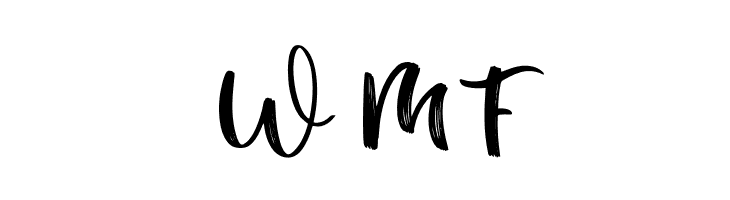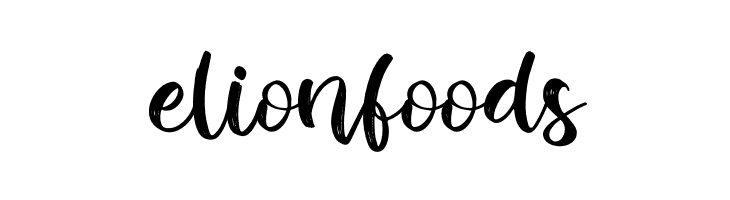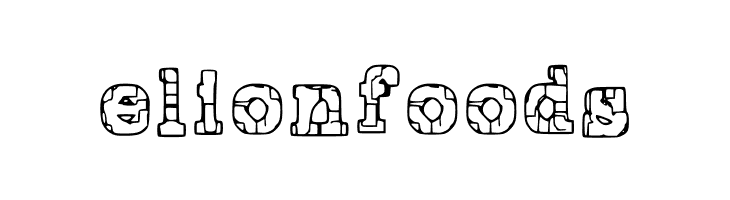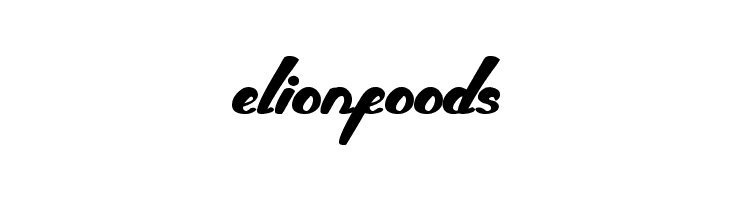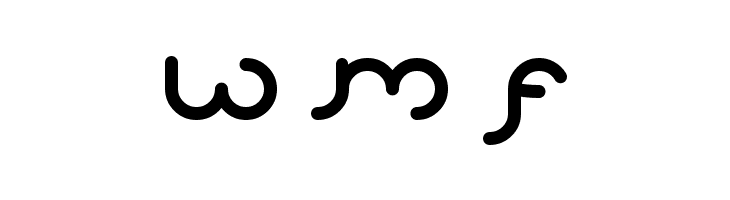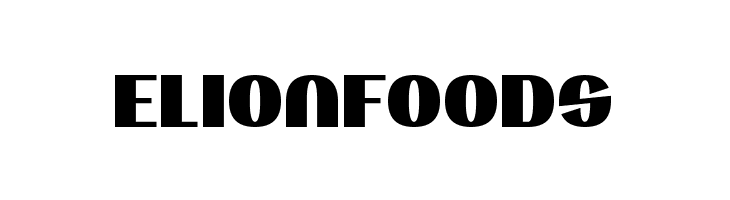
A playful and whimsical font with bold, curvy letterforms and decorative elements.
A fluid and elegant handwritten font with a casual yet sophisticated style.
A bold, modern font with rounded, interconnected strokes and smooth curves.
A playful, modern font with rounded, interconnected characters.
A bold, distressed font with a cut-out, ransom note style.
A dynamic, brush-like font with sharp, angular strokes and an artistic flair.
A bold, dynamic font with sharp angles and a lightning bolt motif.
A bold, handwritten font with a playful and whimsical style.
A classic, calligraphic font with sharp serifs and elegant curves.
A bold, cursive font with a playful and dynamic style.
An elegant, high-contrast script font with ornate, flowing characters.
A hand-drawn, brush-style font with dynamic strokes and an artistic flair.
A bold, distressed font with a grunge-like, hand-drawn appearance.
A playful handwritten font with irregular strokes and a casual style.
A playful, hand-drawn font with brush-like strokes and an artistic vibe.
A playful, informal handwritten font with a whimsical and dynamic style.
A bold, expressive handwritten font with dynamic strokes.
A pixelated, retro-style font inspired by early video game graphics.
A bold, fragmented decorative font with a rugged, graffiti-like style.
A rugged, graffiti-inspired font with a bold, distressed style.
A fluid and elegant script font with a handwritten style.
A bold, geometric font with a modern and decorative style.
A bold, playful font with circular accents and rounded shapes for a modern look.
A bold, textured font with a playful and rugged appearance.
A modern, geometric sans-serif font with a sleek, condensed style.
A playful and whimsical script font with elegant, flowing cursive letters.
A playful, handwritten-style font with bold, dynamic strokes.